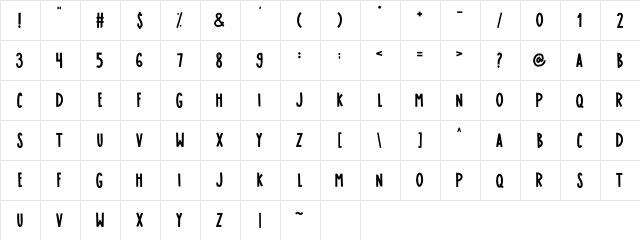
JAKARTA LEGAL AID INSTITUTE Regular
Design Context for JAKARTA LEGAL AID INSTITUTE Typeface
JAKARTA LEGAL AID INSTITUTE takes a measured approach to typography — its balanced proportions and neutral character make it a reliable workhorse for both digital and print work.